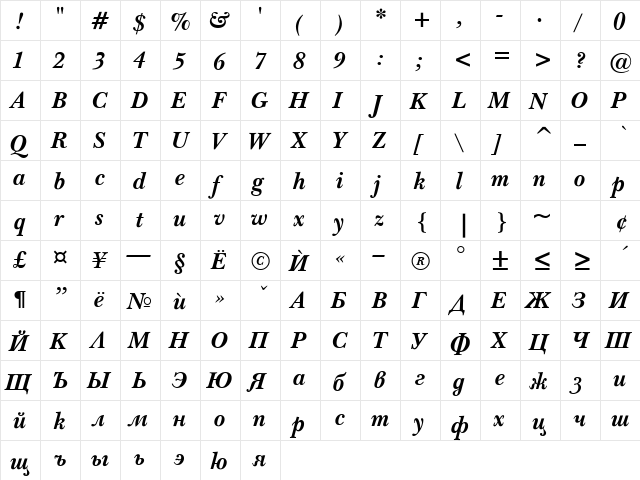
Balkan Bold Italic
Design Context for Balkan Typeface
Balkan takes a measured approach to typography — its balanced proportions and neutral character make it a reliable workhorse for both digital and print work. The dynamic lean of this cut emphasises speed and emphasis in any layout. The heavy weight commands attention and anchors typographic hierarchies.